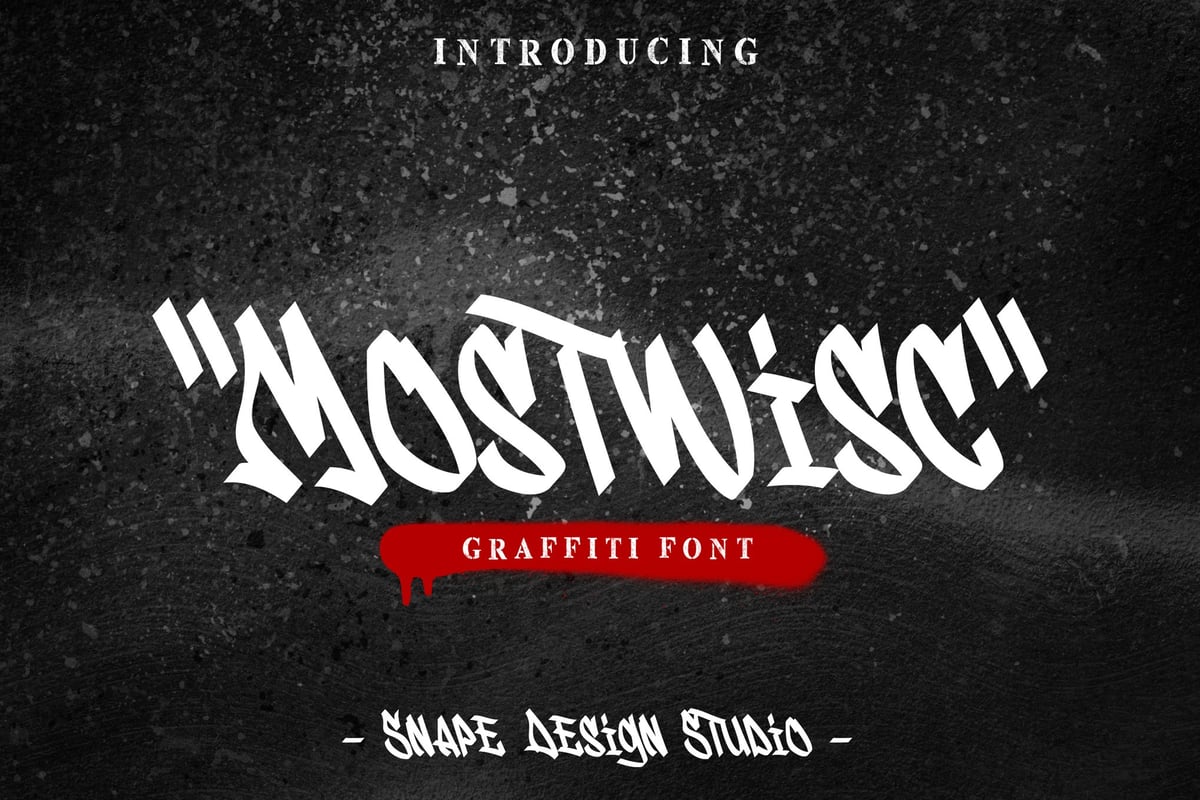
Mostwisc - Graffiti Font
Transform your designs with authentic street art style using this bold graffiti display font. MOSTWISC captures the raw energy of typical street art calligraphy and graffiti tag aesthetics, bringing urban authenticity to your creative projects. This striking display font works perfectly for movies, documentaries, films, logos, posters, games, book covers, headlines, titles, and countless other design applications. Add this powerful typeface to your creative toolkit and watch your projects comman...